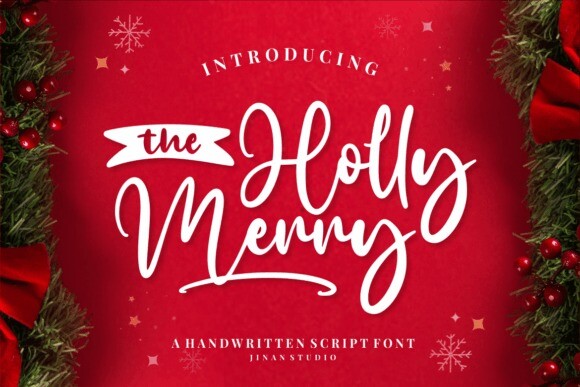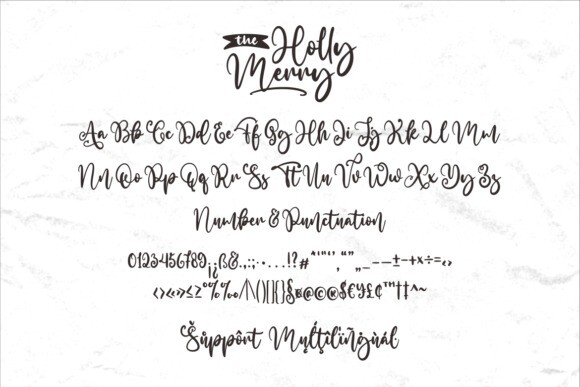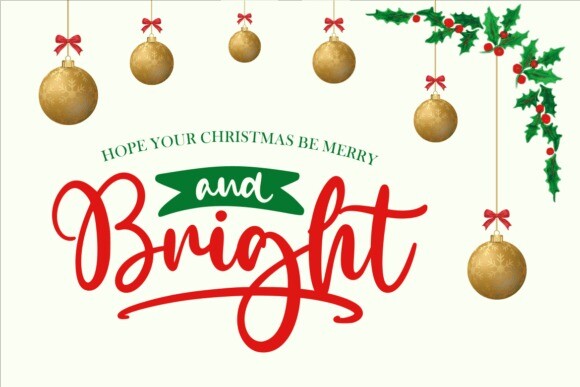
The Holly Merry Font
The Holly Merry Font is a stylish and modern handwritten font, suitable for a wide spectrum of applications. From greeting cards to headlines, it is perfect for all your Christmas projects. This font will add a touch of happiness to each of your creations!